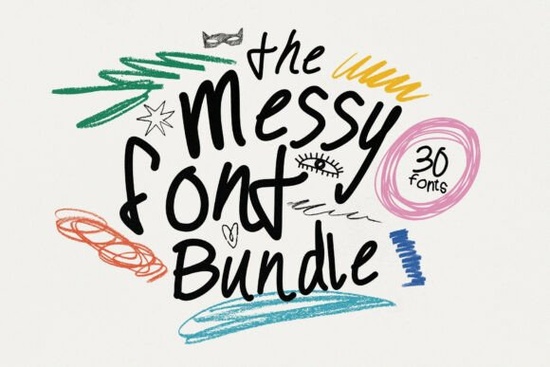
If you're looking for fonts that feel real like they were drawn by hand, not generated by a machine then the Messy Type Bundle Font might be exactly what your creative projects need. This collection of 30 unique typefaces brings back the warmth and character lost in overly clean digital designs. Instead of perfect symmetry and pixel-perfect lines, you get uneven strokes, subtle wobbles, and natural quirks that make each letter feel alive.
What makes these fonts different from others?
While many fonts aim for precision, this bundle celebrates imperfection. You’ll find handwritten scripts with slight smudges, rough serif styles that look like they were carved into wood, and brush lettering that mimics real paint flow. These aren’t just decorative they carry emotion. They’re ideal when you want your design to feel personal, expressive, or handmade.
Each font in the bundle was designed to reflect real human touch. Whether it’s a marker sketch that didn’t quite line up or a quick note scribbled on a napkin, these typefaces capture those moments. They work well in both digital and print formats, making them great for zines, packaging, social media posts, branding, and even album covers.
Who should use the Messy Type Bundle Font?
It’s especially useful for small business owners, indie brands, crafters, and print-on-demand sellers who want their work to stand out with authenticity. If you’re designing merch for Etsy, creating content for Instagram, or building a brand identity that feels approachable and warm, this bundle offers a fresh alternative to sterile, AI-generated looks.
You’ll also find it helpful if you’re working on editorial layouts, art projects, or anything that tells a story. The natural inconsistencies in the letters help guide the viewer’s eye and create emotional connection something polished fonts often miss.
How can I use these fonts in my work?
- Branding & logos: Use a bold messy serif or script font to give your logo a personal, handcrafted vibe.
- Social media graphics: Add handwritten flair to quotes, announcements, or product reveals.
- Packaging & labels: Perfect for handmade soaps, candles, or baked goods where authenticity matters.
- Zines & art prints: Pair with textured backgrounds for a DIY aesthetic.
- Album covers & posters: Let the rawness of the type complement music, poetry, or visual art.
The variety in the bundle means you won’t run out of options. There are rough sans serifs for modern minimalism with edge, textured display fonts for headlines, and expressive scripts for personal touches. You can mix and match across projects without repeating yourself.
Where does this fit in my existing font library?
If you already have a set of clean, professional fonts, adding a few from this bundle can balance your toolkit. Think of it as introducing contrast where clean fonts handle clarity, messy ones add soul. It’s like having a pencil sketch alongside a digital illustration: one is precise, the other feels real.
For example, if you love Delighton Script, you’ll appreciate how the Messy Type Bundle Font expands on that hand-drawn energy with more variation and grit. Similarly, fans of The Skinny will enjoy the organic flow of these fonts, while those who favor Manciety will find new textures and spontaneity here.
If you’ve used Phatin Angler before, you know how powerful a distinctive script can be. The Messy Type Bundle Font adds even more depth to that style offering versions with more irregularity and texture, perfect for layered compositions.
And if you’re exploring more options, check out the full Messy Type Bundle Font collection on Creative Fabrica. It’s built for designers who value feeling over perfection.
Final thoughts: Why go messy?
In a world of AI-generated visuals and algorithm-driven design trends, choosing a font that feels human can make your work feel more meaningful. These aren’t just tools they’re expressions. They let your audience sense the effort, the care, the moment behind the design.
When your project has a little chaos, it often feels more honest. And that honesty? That’s what people connect with.